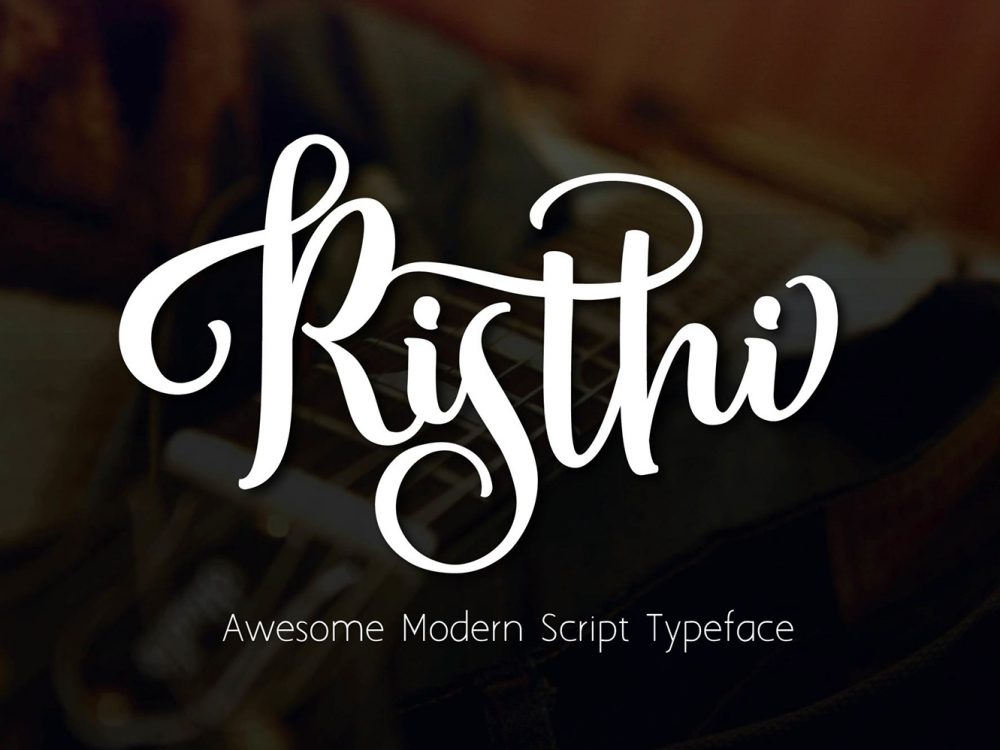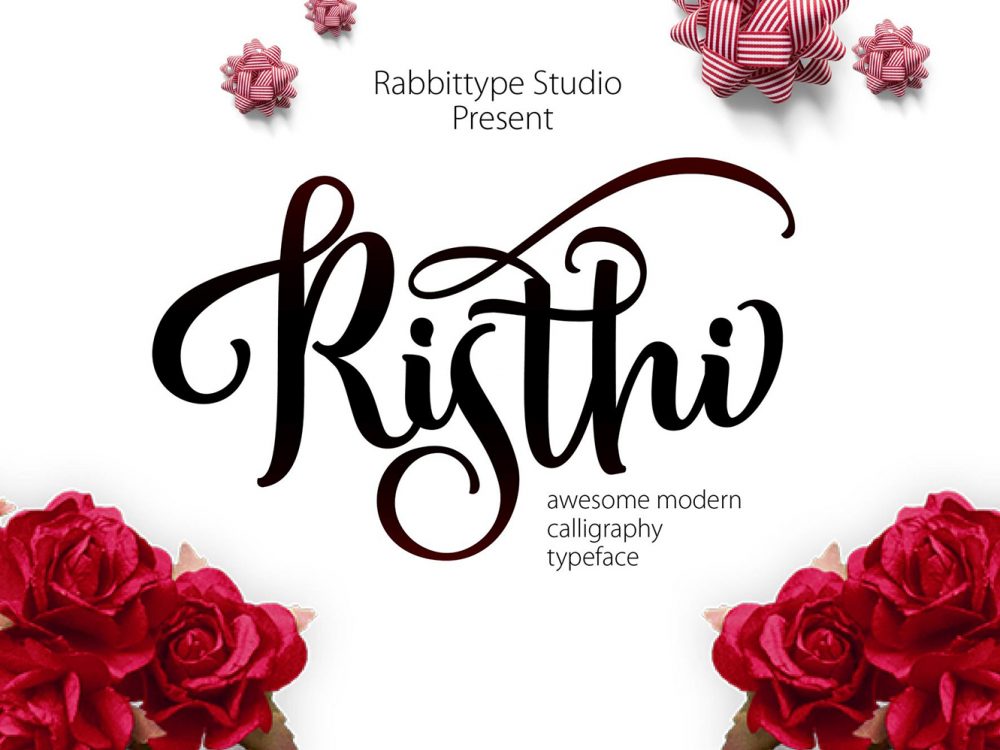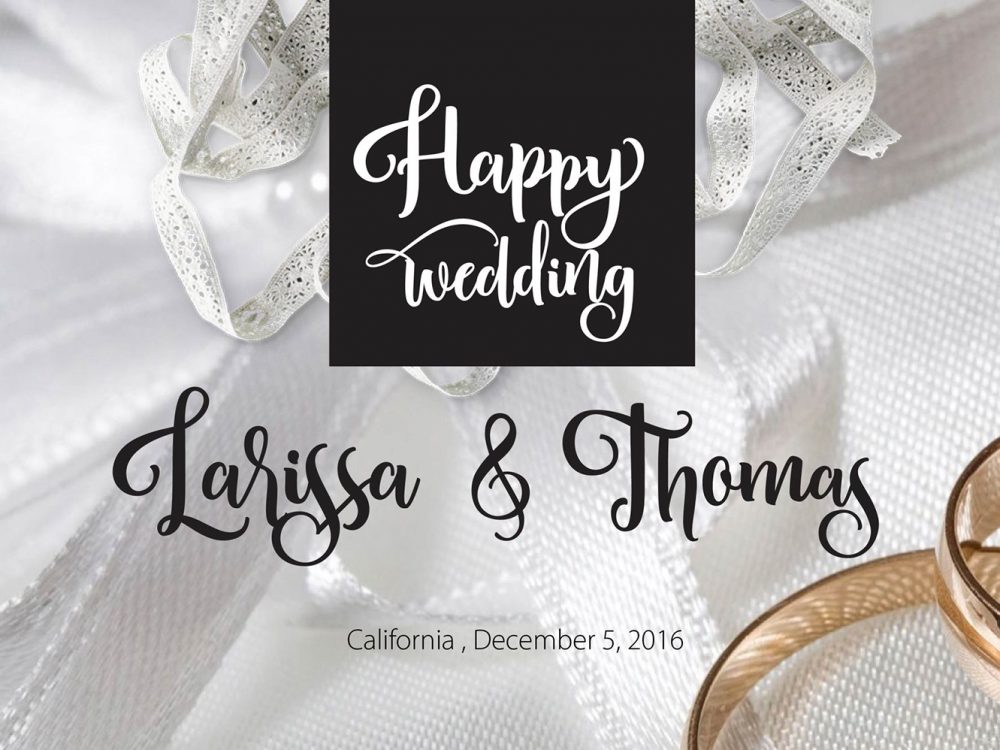
Risthi Script Free Demo Typeface
Risthi Script Free Demo Typeface is a beautiful handwritten font that stands out for its elegant, swirling lines. You can use this font to create a variety of design projects that require a beautiful handwritten font. These can be posters, greeting cards, wedding invitations, clothing prints, and more.